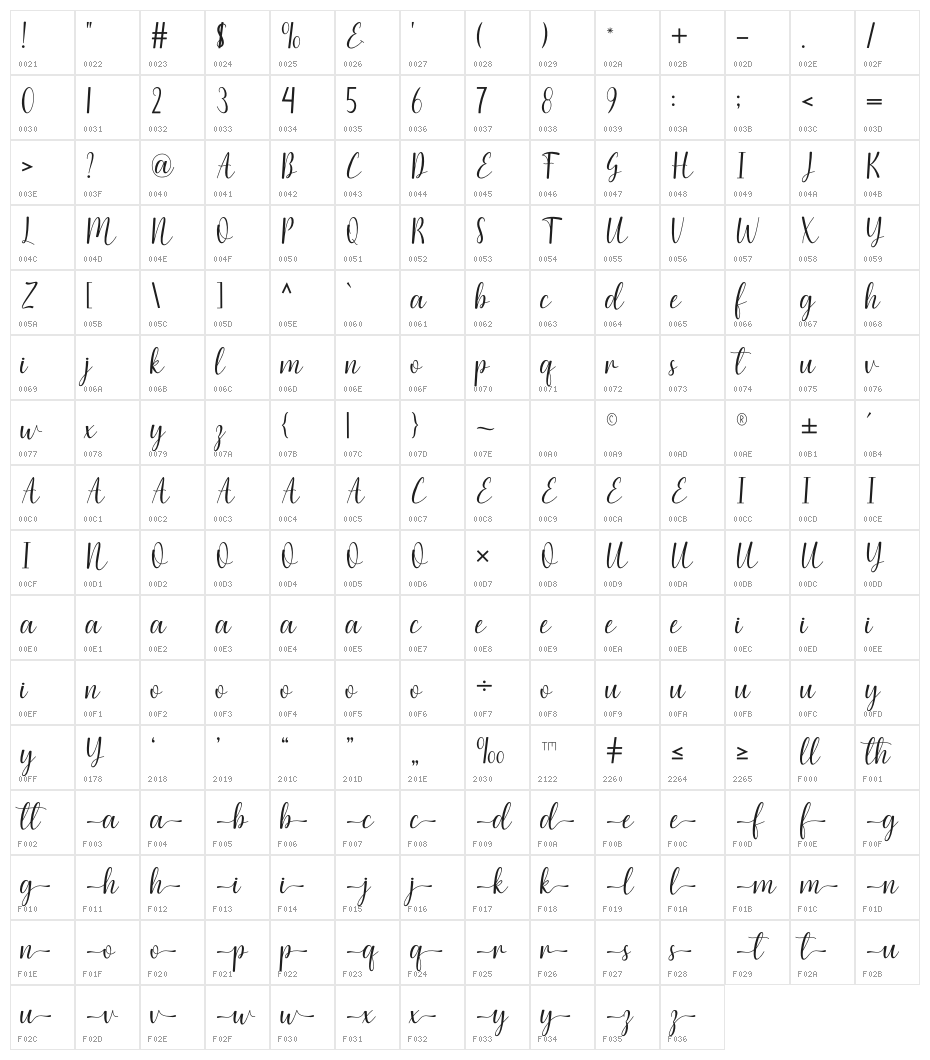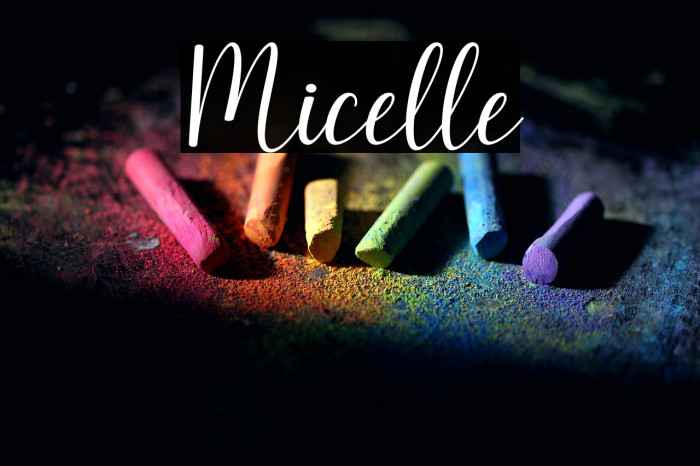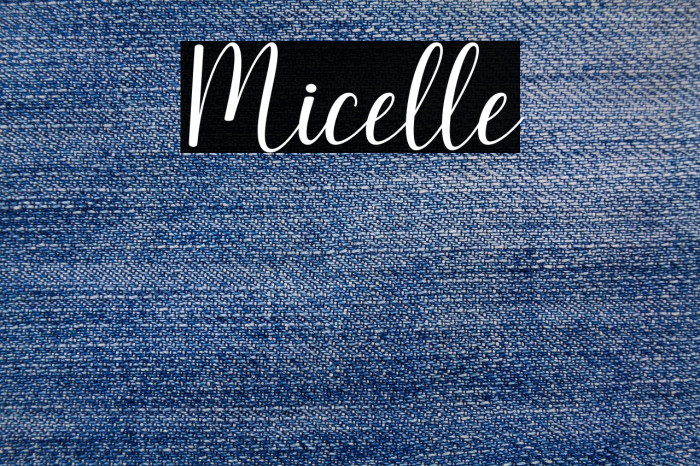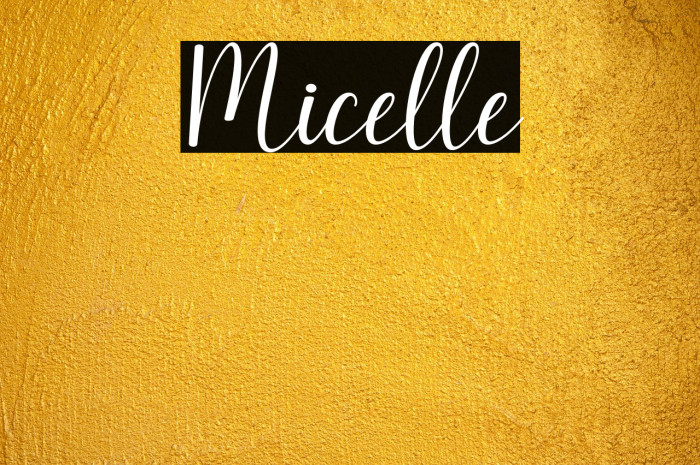
Micelle Font
Micelle Description
This font features a stylish, flowing script that combines elegance with a modern touch. The uppercase letters are tall and slightly narrow, with a consistent slant that gives them a dynamic appearance. The lowercase letters are more fluid, with graceful curves and loops that enhance the font's handwritten feel. Numbers are clear and maintain the same slanted style, ensuring readability while keeping the aesthetic consistent. Special characters are thoughtfully designed to match the overall style, adding versatility for various uses. The font's overall appearance is both sophisticated and approachable, making it suitable for a wide range of design projects.